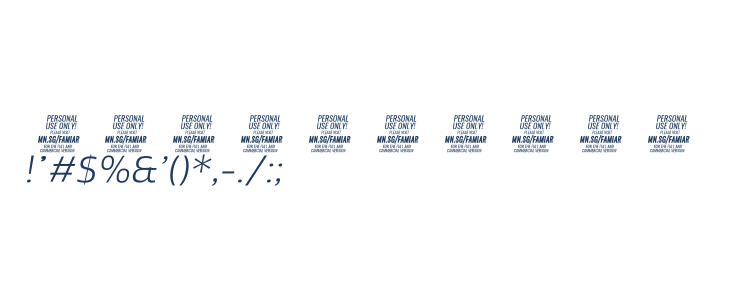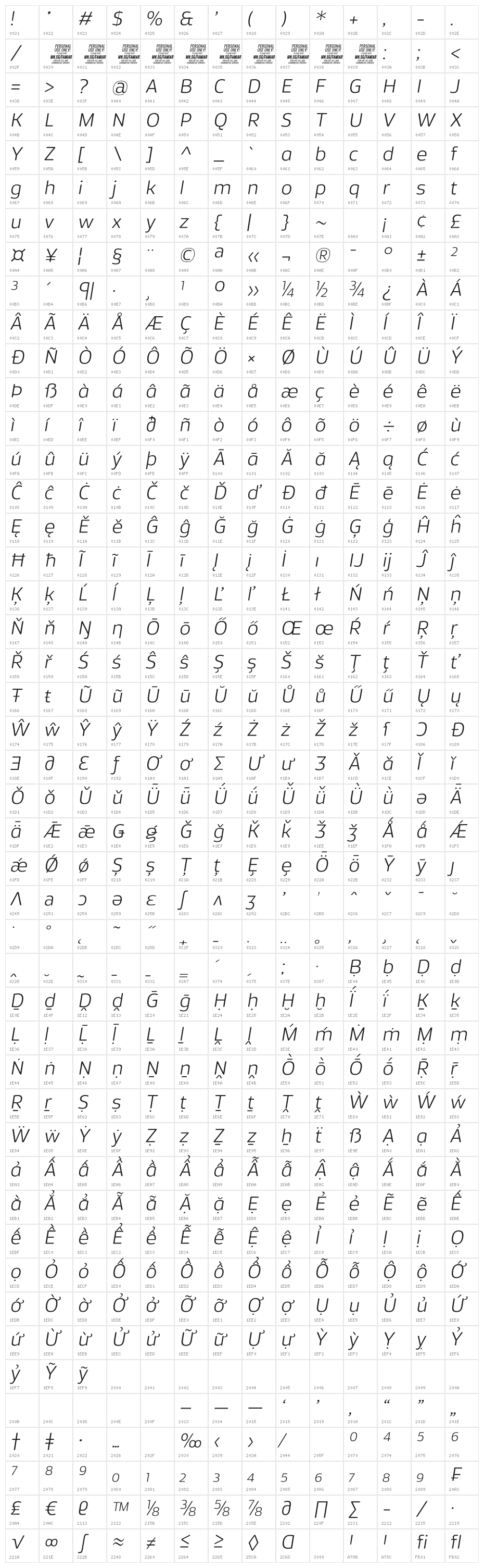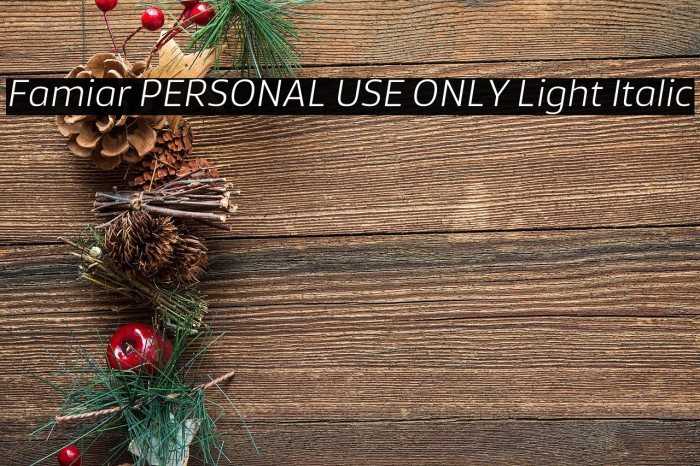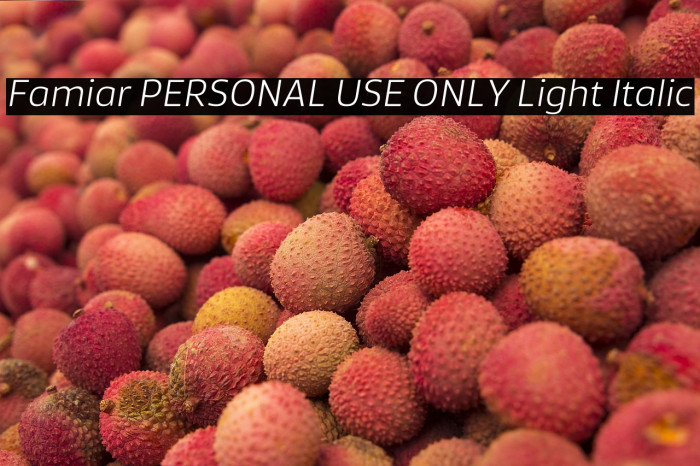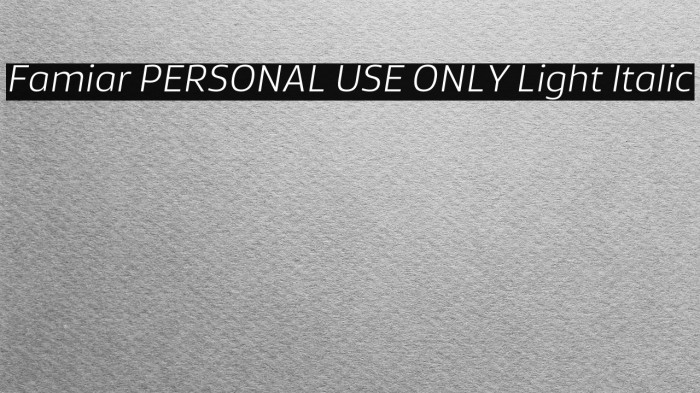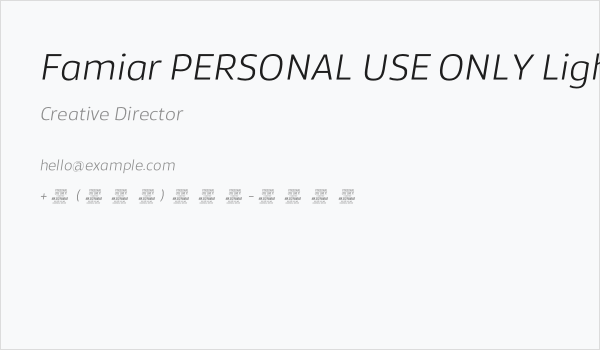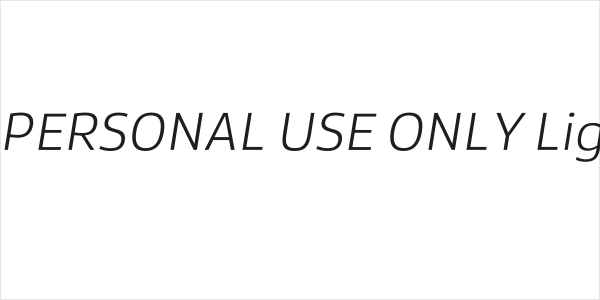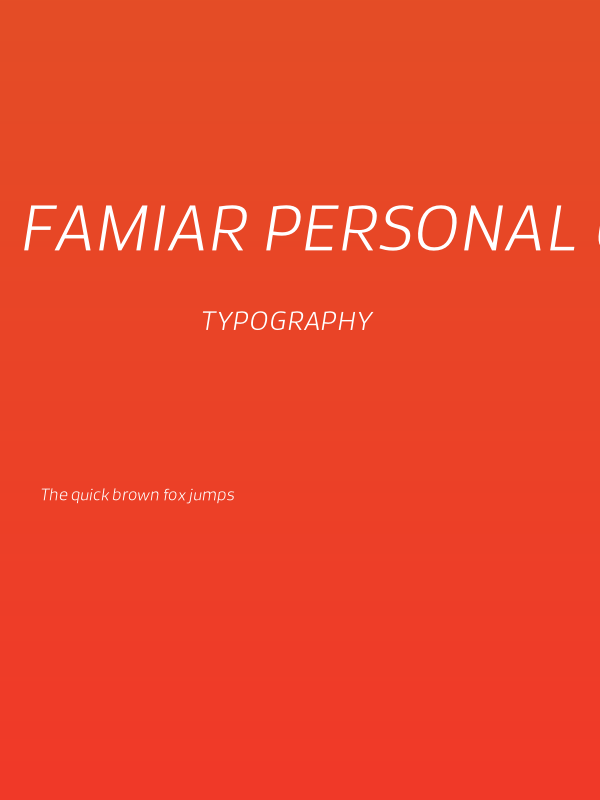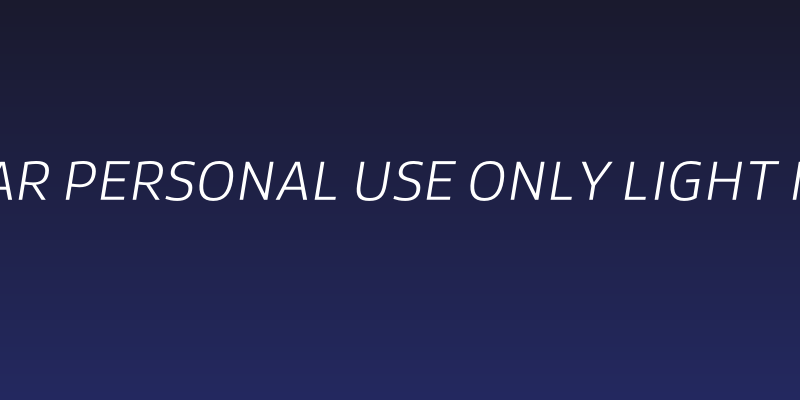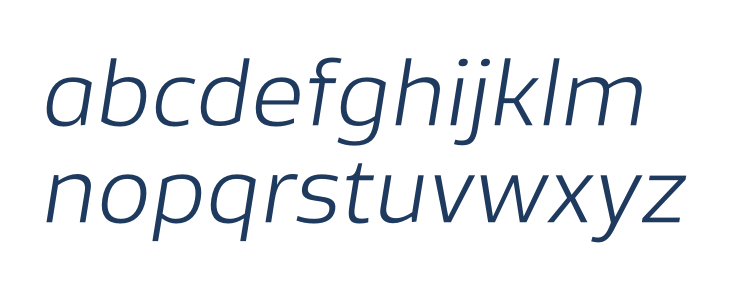
Famiar PERSONAL USE ONLY Light Italic Font
Famiar PERSONAL USE ONLY Light Italic Description
This font features a sleek and modern design with a light and italicized style. The characters are slightly slanted, giving a sense of motion and elegance. The strokes are consistent and smooth, with a uniform thickness that contributes to its clean appearance. The uppercase and lowercase letters maintain a harmonious balance, while the numerals and special characters are crafted with precision. This font's overall aesthetic is contemporary, making it suitable for a variety of design applications.
| Proposed Projects | Ideal for branding, editorial design, digital interfaces, and elegant invitations. |